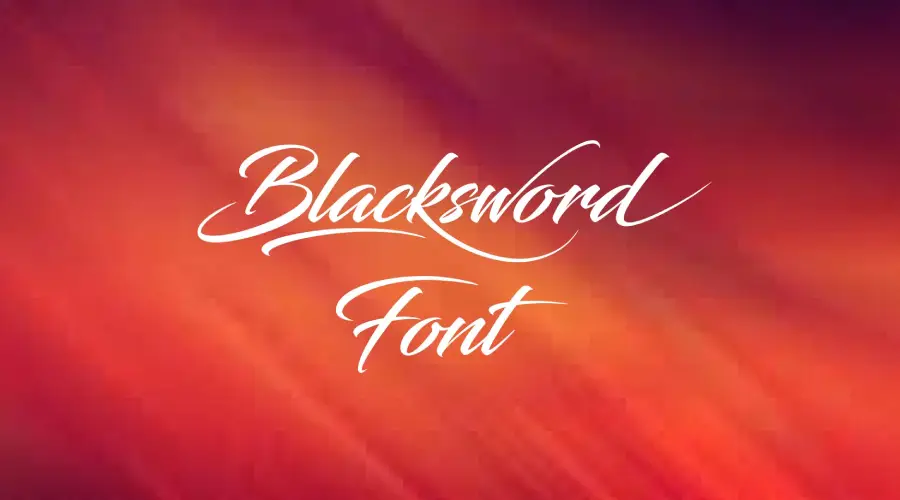
While typography has a vast range of fonts, Blacksword is a font that captures the imagination quite like no other. Its unique blend of style and functionality sets it apart from its competition as a testament to the art of lettering. This font is a beautiful and refined design that will surely capture your audience.
About Blacksword Font and Its Features
Originating from Youssef Habchi’s creative mind, Blacksword is a script font with a smooth and flowing appearance. He is a graphic designer from Morocco and published this font in 2016. He also designed this font in uppercase letters, lowercase letters, symbols, numbers, and punctuation marks. The letters have curved and swirly strokes, creating a graceful and elegant shape. The font also has some ligatures and alternates, giving it variety and flexibility. It’s characterized by its fluid, cursive strokes and dramatic flourishes, reminiscent of calligraphy.
The Blacksword font is incredibly versatile. It is suitable for various purposes, such as invitations, logos, headlines, posters, quotes, signatures, and more. Its elegant style is ideal for wedding invitations, logos, branding, and even for social media posts. It can create a romantic and classy impression on your audience and convey a sense of luxury and quality. The font can also work well with other fonts, especially those that have a simple and clean style. This font is free for personal use. But for commercial use, you need to buy a license. You can contact the designer from our link below for more inquiries.
The blacksword font is a great choice for anyone who wants to create a stylish and elegant look for their text. It has a unique and distinctive design that can catch attention and make an impact. It is also versatile and adaptable to different contexts and platforms.